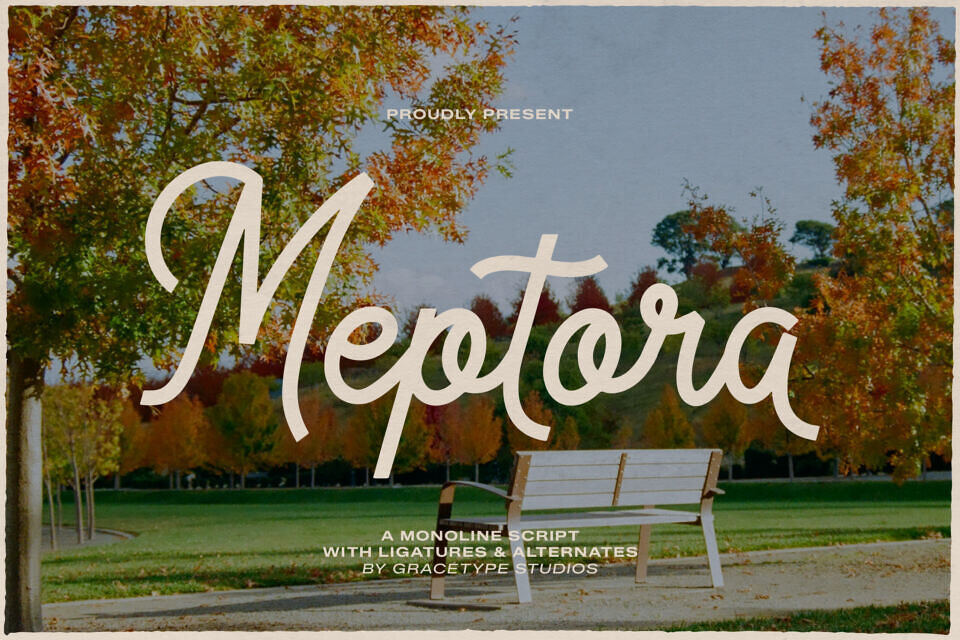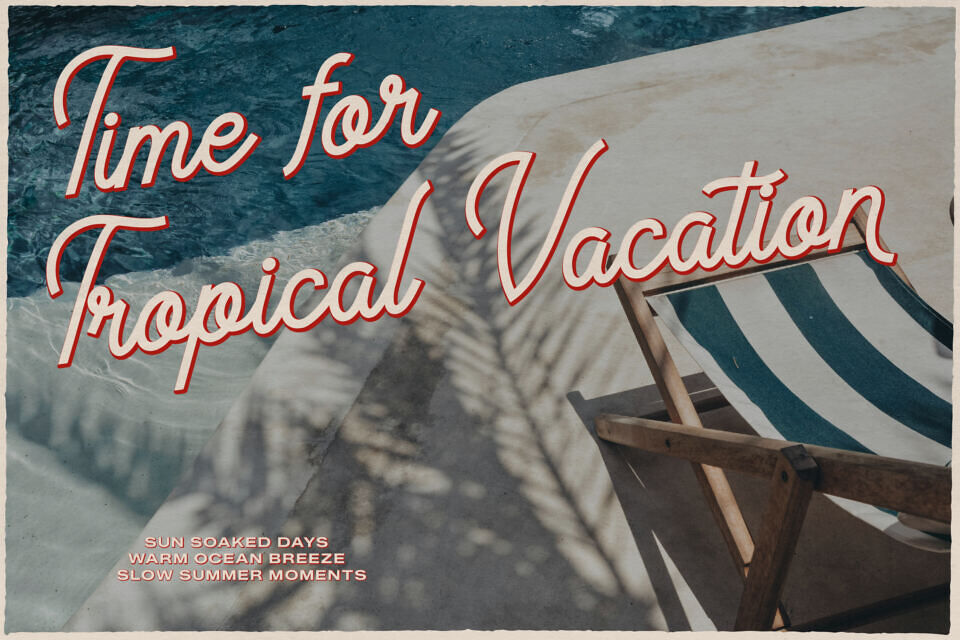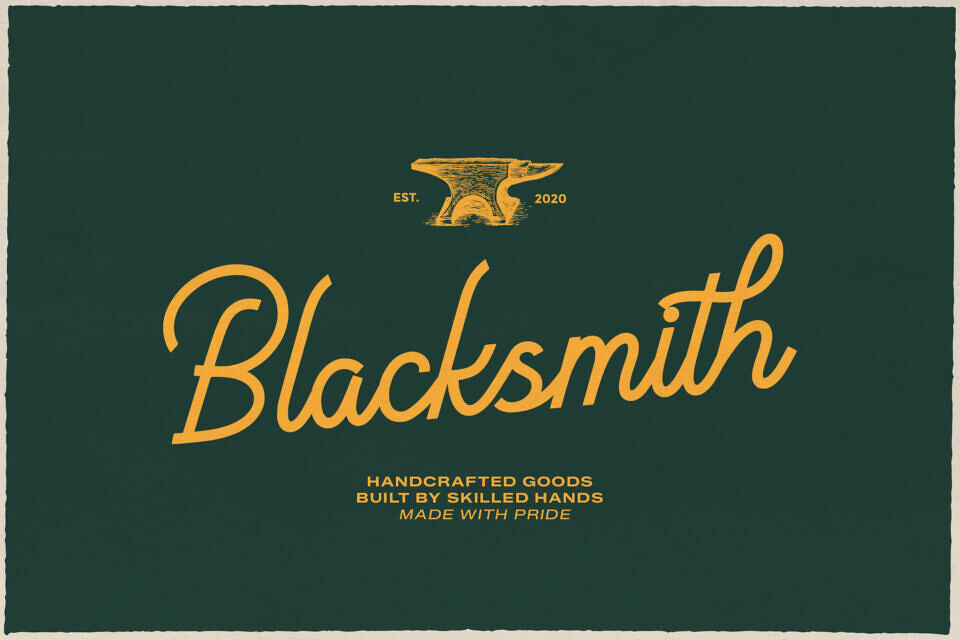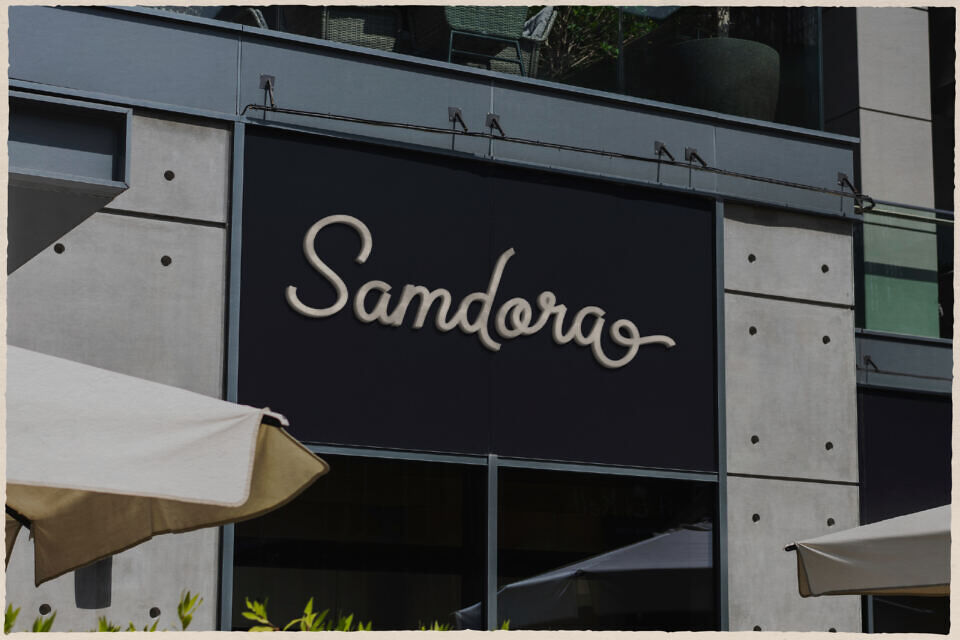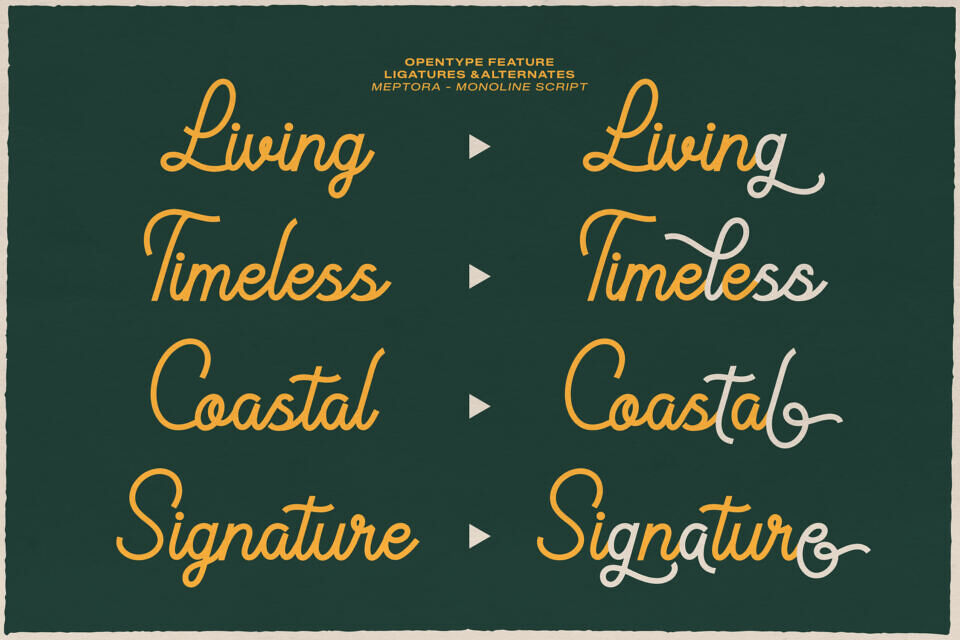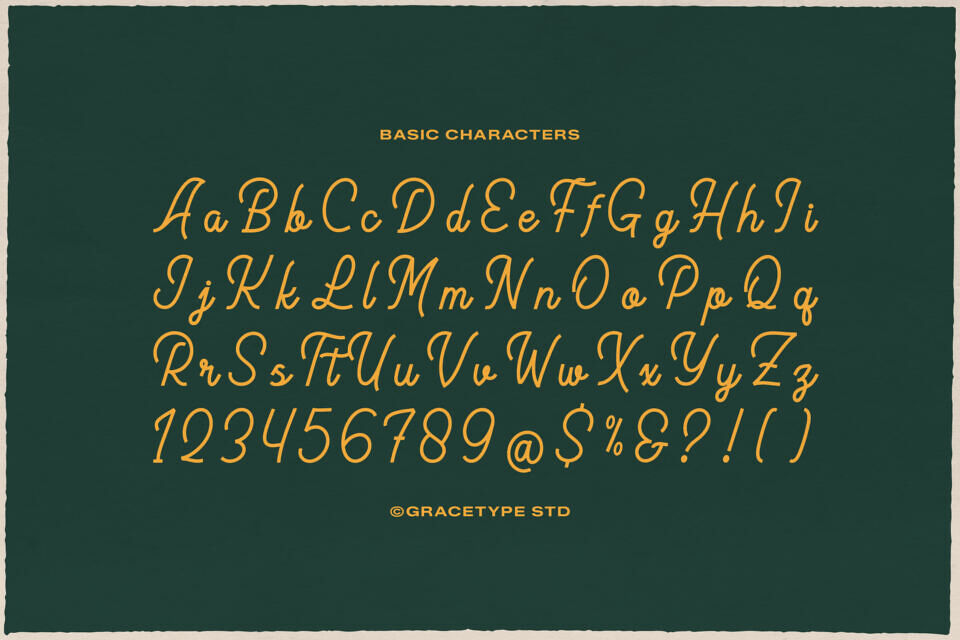
Meptora Font
Capture the effortless charm of a bygone era with Meptora, a beautifully crafted monoline script font that radiates warmth and authenticity. Designed with a consistent stroke weight, Meptora balances the nostalgic feel of vintage signage with a clean, contemporary execution that feels right at home in modern lifestyle branding.
With a generous set of ligatures and alternates, the font mimics the natural flow of handwriting, making it an ideal choice for cozy cafe branding, artisanal packaging, social media quotes, and inviting invitation suites. Whether you’re aiming for a rustic “autumn in the park” vibe or a sleek, retro-modern logo, Meptora provides the versatility and character to make your message feel personal and handcrafted.